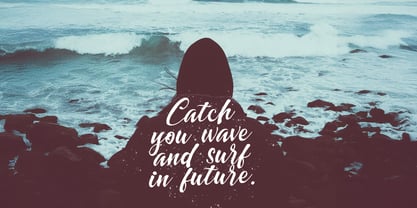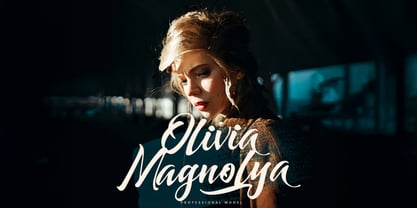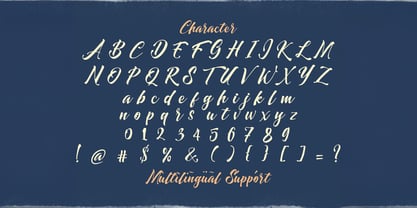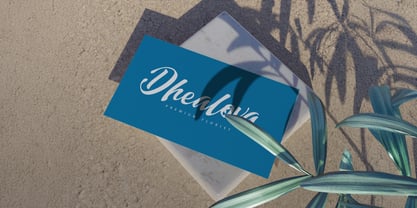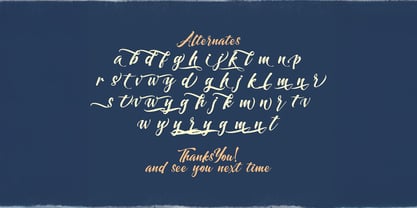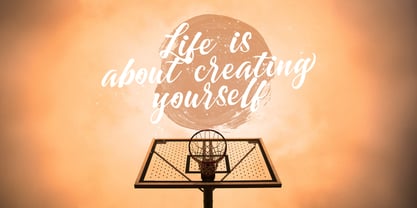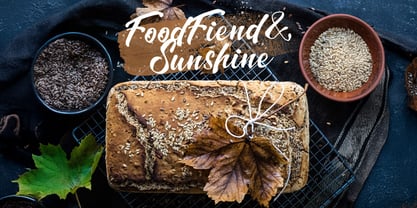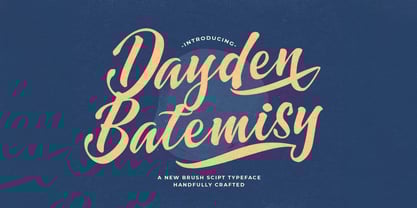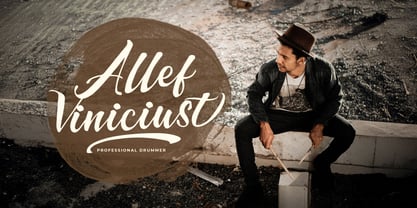
Dayden Batemisy
by Stringlabs Creative Studio
The Dayden Batemisy Font Family was designed by Virgiawan Listanto and published by Stringlabs Creative Studio. Dayden Batemisy contains 1 styles.
Dayden Batemisy is a beautifully handcrafted brush script font that brings a natural, flowing elegance to your designs. With its smooth, fluid strokes and organic brush textures, this font captures the effortless beauty of hand-lettered calligraphy.
Designers: Virgiawan Listanto
Publisher: Stringlabs Creative Studio
Foundry: Stringlabs Creative Studio
Design Owner: Stringlabs Creative Studio